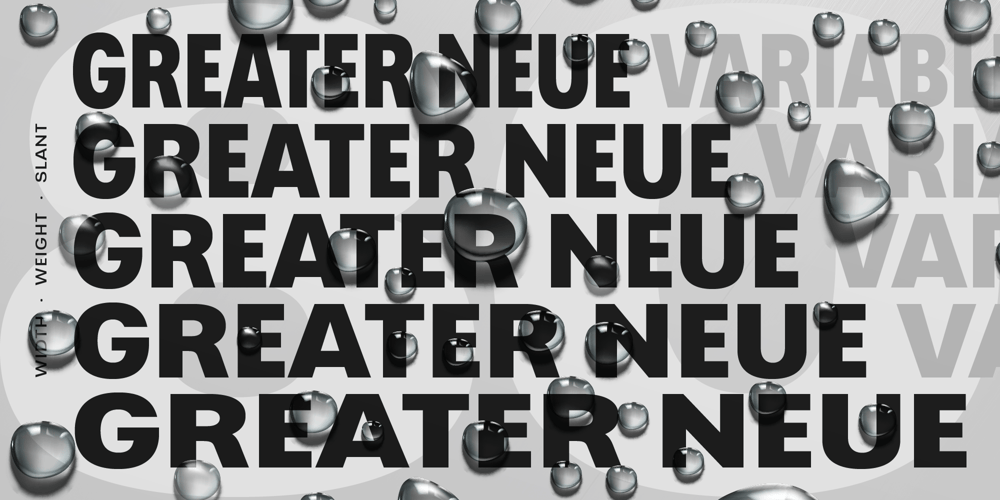
Greater Neue Variable Font Family was designed by Nikolay Savchuk and published by NicolassFonts. Greater Neue Variable contains 1 styles and family package options. Greater Neue Variable font based on the Greater Nueu family. Variable font includes 5 subfamilies: Condensed, Narrow, Normal, Wide, and Expanded. Harnessing the power of variable font technology, it offers seamless adjustment of weight, width, and slant, empowering designers to customize with unprecedented precision. It is perfect for packaging, advertisements, headlines, and corporate identities. This font family is well-suited for graphic design and any type of display use.